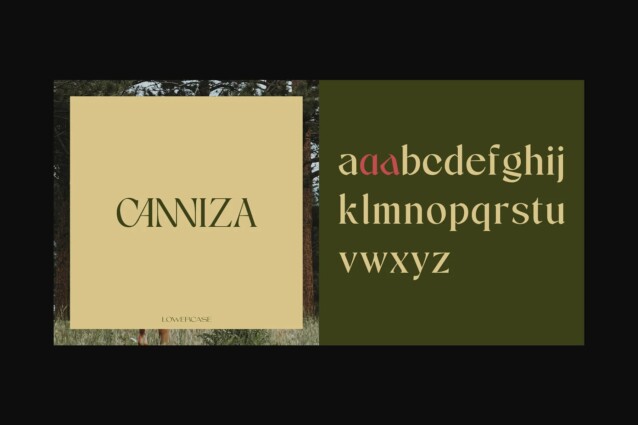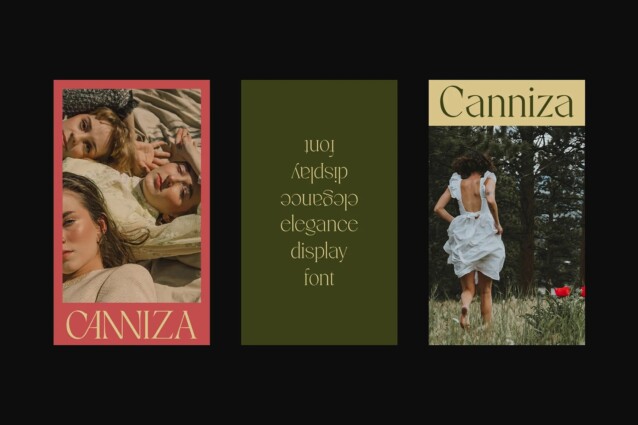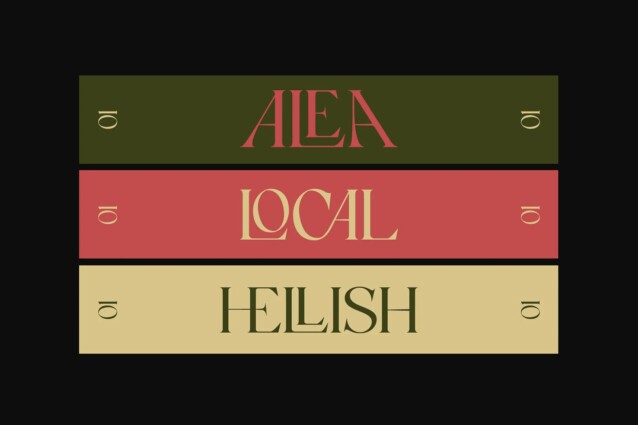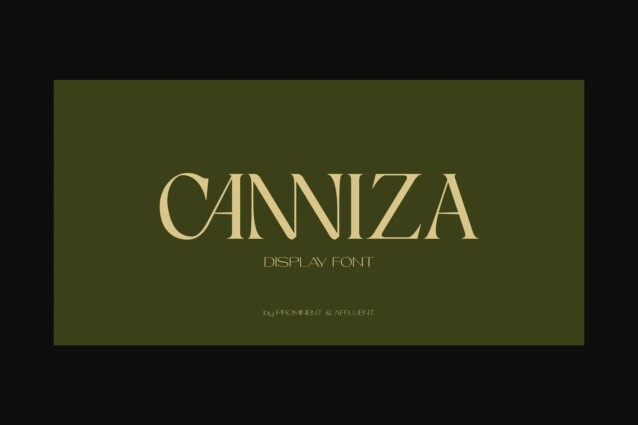
Canniza Font is a great typeface for creating beautiful and elegant headlines and logo designs. It features 8 weights, from thin to bold. The typeface features a classic serif design with a modern twist.
Canniza is perfect for branding projects, Logo design, Clothing Branding, product packaging, magazine headers, or simply as a stylish text overlay to any background image.